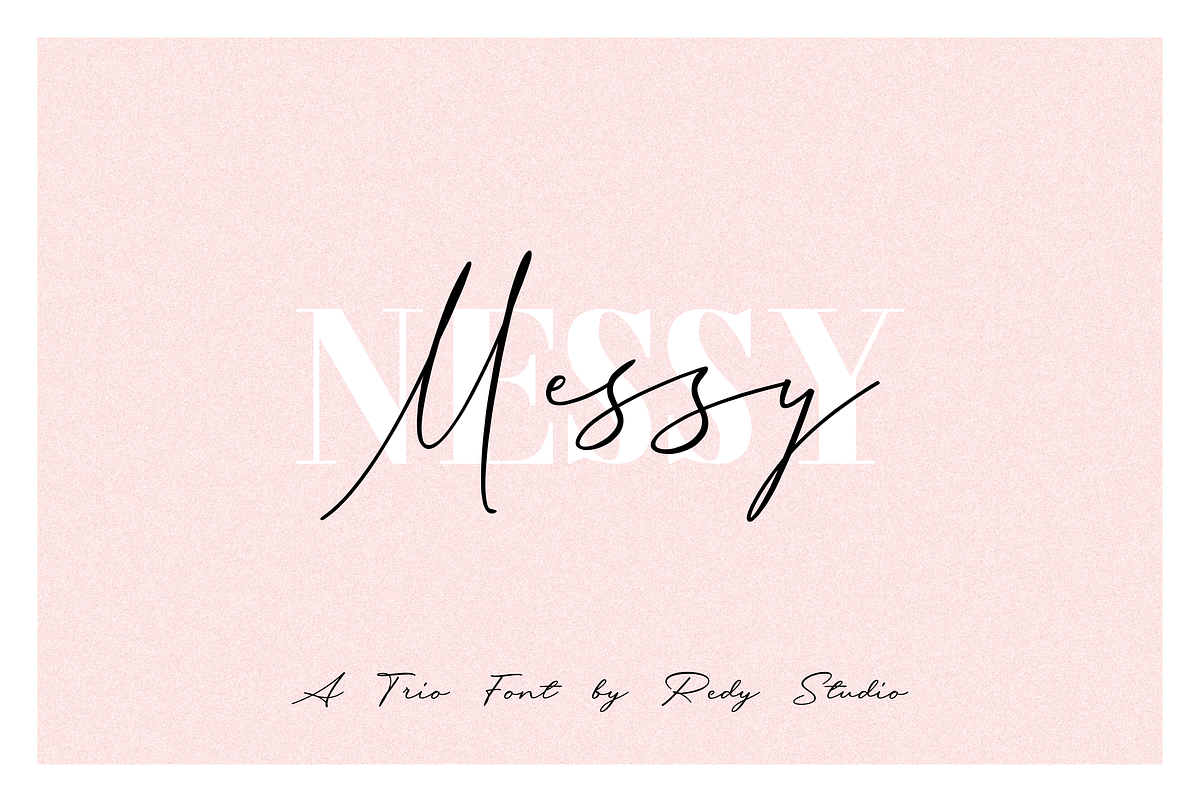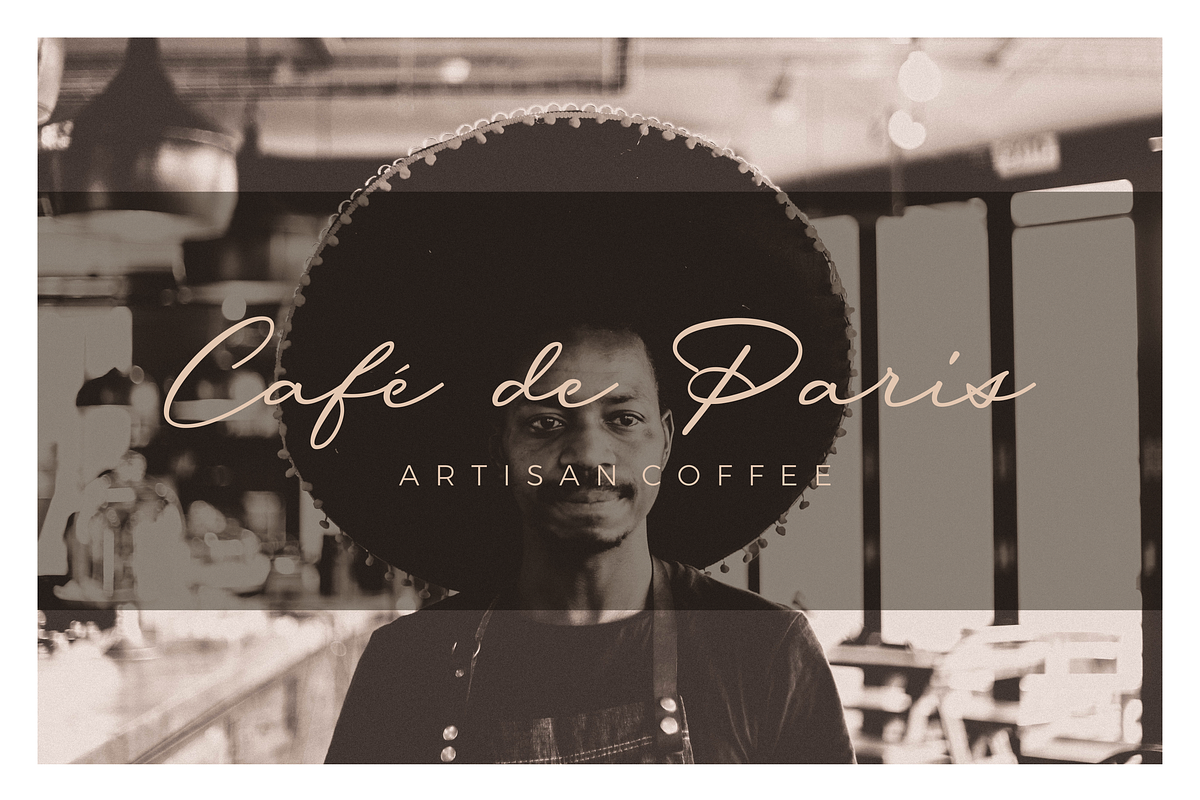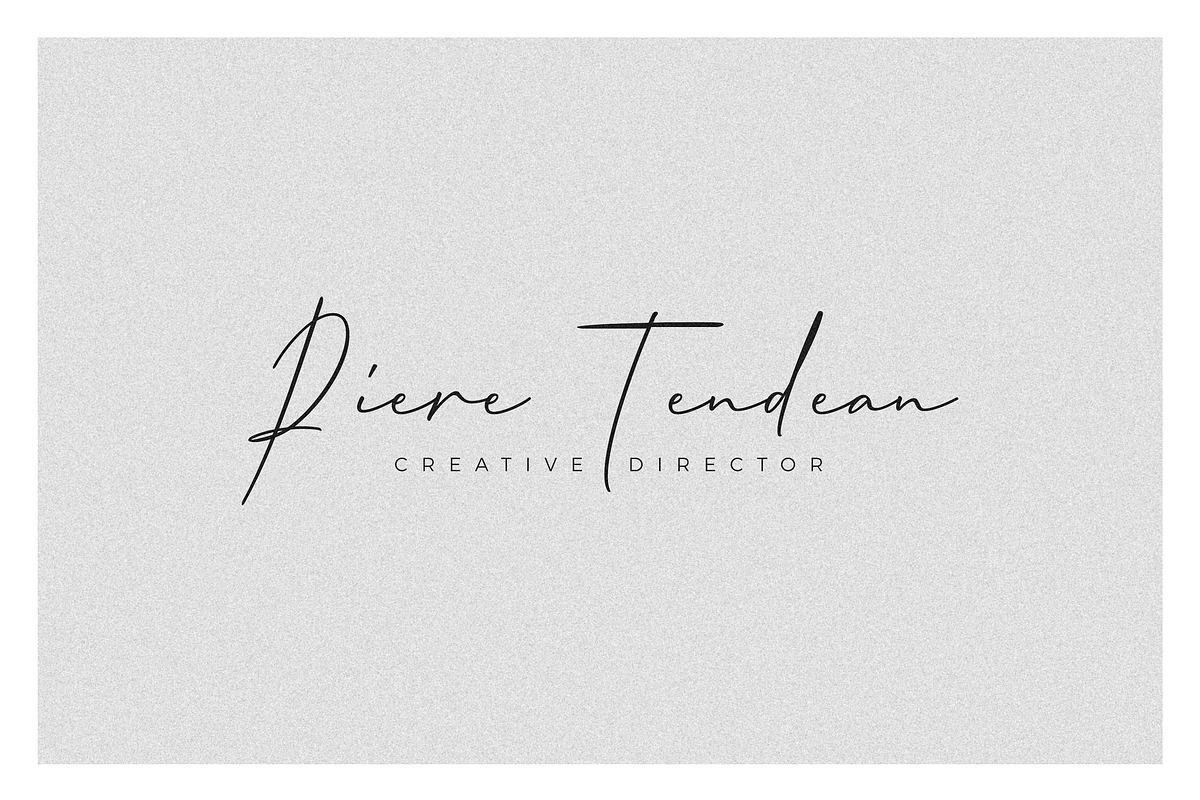
Messy Nessy - Font Duo
Did you ever feel confused when choosing fonts for your design? In this case, Messy Nessy is a collection of 3 fonts that can help you! It includes two scripts – Fresh and Fancy, and one serif font. The scripts are so creative, romantic, and trendy. They are good choices for designing Fashion logos, Wedding logos, Social media posts. Also, when you need to make some feminine designs, the designer serif font is a nice choice for you.
Messy Nessy features:
- A full set of upper & lowercase characters